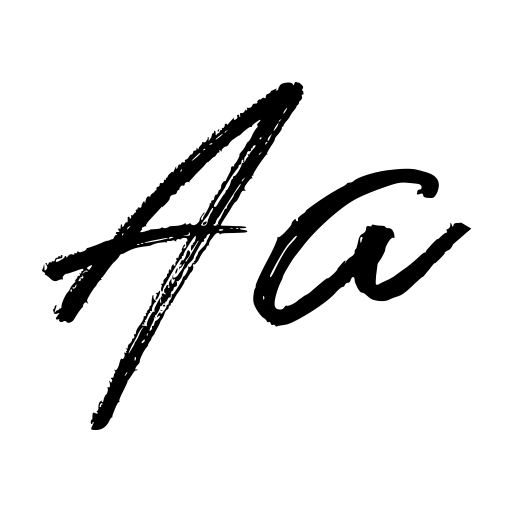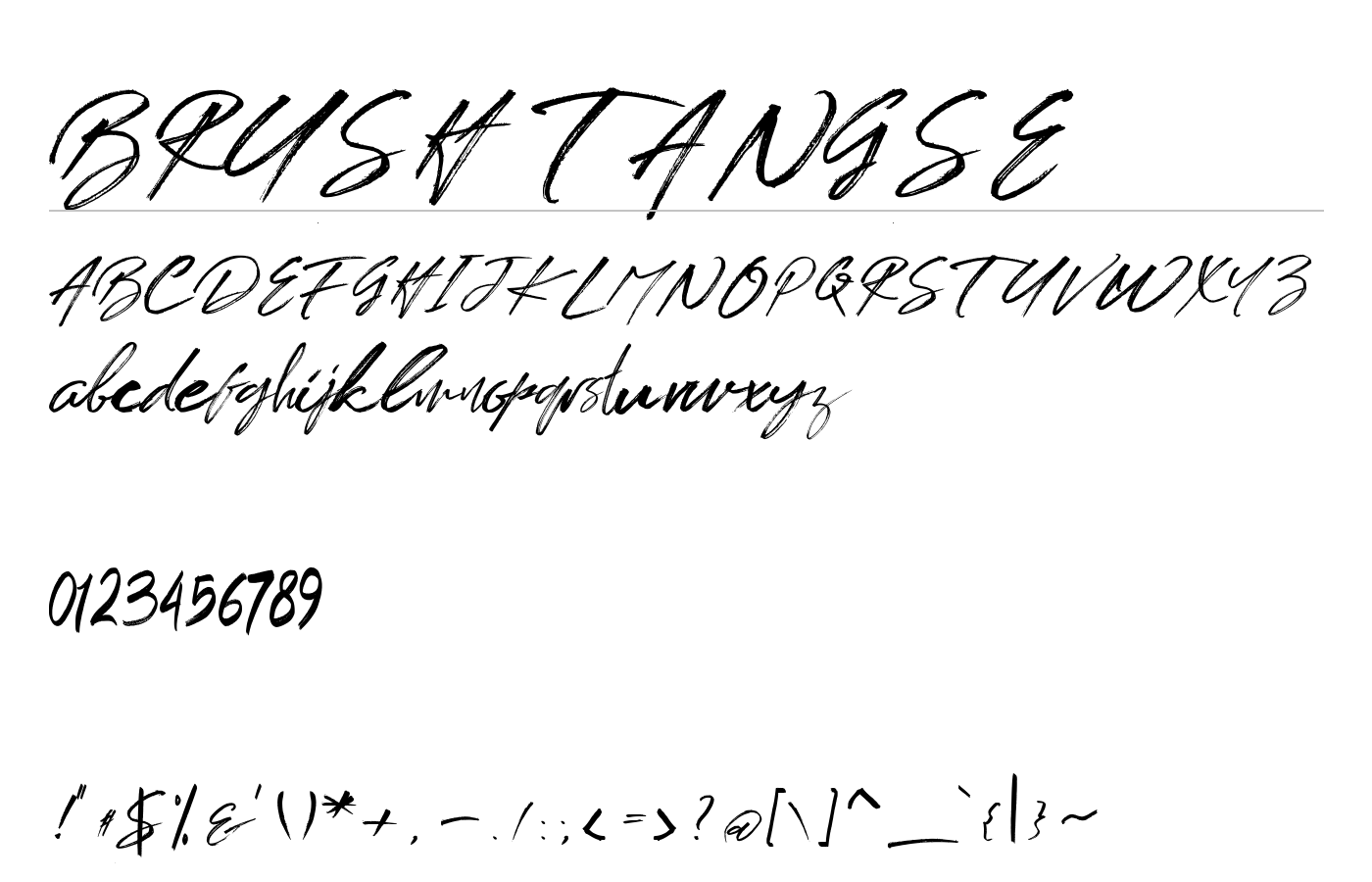
BRUSH TANGSE is an expressive brush script font featuring dynamic, hand-painted strokes with a natural, artistic flair. Its irregular, flowing letterforms give it an energetic and personal feel, ideal for creative projects that need a bold yet casual touch. This font works great in branding, logos, posters, and packaging where an informal, handcrafted style is desired to convey creativity and uniqueness.
BRUSH TANGSE Font
About BRUSH TANGSE Font